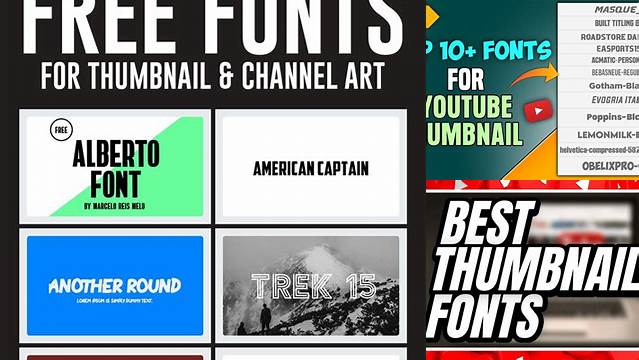
Best Free Fonts For YouTube Thumbnails: Draw Viewers In!
Hey guys! Creating eye-catching YouTube thumbnails is super important for getting those clicks and views, right? And a big part of a great thumbnail is the font you use. But who wants to spend a ton of money on fonts? Nobody! So, let's dive into the world of the best free fonts for YouTube thumbnails that will make your videos stand out from the crowd.
1. Impact: The Classic Choice for a Reason
Impact is like the old faithful of YouTube fonts. It's bold, it's clear, and it gets the message across. Think of all those classic meme images – Impact is often the star! For your YouTube thumbnails, using Impact can be a powerful way to grab attention, especially when you need a short, punchy title to really pop. The thick letters are easy to read even on small screens, which is crucial since most people are browsing YouTube on their phones. But remember, with great power comes great responsibility! Don't overuse Impact, or your thumbnails might start to look a bit generic. Mix it up with other fonts to keep things fresh. Experimenting with colors and outlines can also give Impact a new lease on life. Consider a bright yellow Impact font with a black outline against a contrasting background – that's a classic combo for a reason! You might also try using Impact in combination with a more modern sans-serif font for a balanced look. The key is to make your thumbnail text instantly readable and appealing, and Impact is a solid starting point for achieving that goal. So, if you are searching for the best free fonts for YouTube thumbnails, the Impact is a great option.
2. Bebas Neue: Modern and Clean
If you're going for a modern and clean vibe, Bebas Neue is your new best friend. This sans-serif font is tall, narrow, and super sleek, making it perfect for thumbnails that need a touch of sophistication. It's incredibly versatile, working well for everything from tech reviews to cooking tutorials. The clean lines of Bebas Neue make your text look professional and easy to read, even when you're working with limited space on your thumbnail. Think of it as the font equivalent of a well-tailored suit – it just looks good! Plus, it pairs beautifully with other fonts, so you can create some really interesting typography combinations. Try using Bebas Neue for your main title and a bolder, more playful font for a subtitle or call to action. This font provides one of the best free fonts for YouTube thumbnails. Another great thing about Bebas Neue is its availability. It's a widely used font, so you can find it on pretty much any font platform, and it's completely free for personal and commercial use. That's a win-win! When designing your thumbnail, consider the overall aesthetic of your channel. If you're aiming for a polished, contemporary feel, Bebas Neue is a fantastic choice. Experiment with different font weights and sizes to find the perfect balance for your thumbnail design. Remember, the goal is to create a thumbnail that is both eye-catching and informative, and Bebas Neue can definitely help you achieve that.
3. Montserrat: The All-Around Winner
Montserrat is like the Swiss Army knife of fonts – it can do it all! This sans-serif font is clean, modern, and incredibly versatile, making it a fantastic choice for just about any YouTube thumbnail. Whether you're creating a gaming video, a beauty tutorial, or a travel vlog, Montserrat will fit right in. The beauty of Montserrat lies in its simplicity. It's easy to read, even at smaller sizes, and it has a friendly, approachable vibe. This makes it perfect for attracting viewers who are scrolling through YouTube looking for something interesting to watch. Plus, Montserrat comes in a variety of weights, from thin to bold, giving you plenty of options for creating visual hierarchy in your thumbnail text. You can use a bold weight for your main title and a lighter weight for your subtitle or call to action. Are you looking for the best free fonts for YouTube thumbnails? Montserrat is it. This font is also a dream to pair with other fonts. It works well with both serif and sans-serif fonts, so you can really let your creativity shine. Try pairing Montserrat with a script font for a touch of elegance, or with a bolder sans-serif font for a more impactful look. When using Montserrat on your thumbnails, pay attention to the overall composition. Make sure your text is large enough to be easily readable and that it contrasts well with your background image. A pop of color can also help your text stand out. Overall, Montserrat is a reliable and stylish font that will elevate the look of your YouTube thumbnails.
4. Roboto: Techy and Readable
If your YouTube channel focuses on tech, tutorials, or anything that needs a modern, readable font, Roboto is an excellent pick. This sans-serif font has a clean, geometric design that feels both futuristic and approachable. It's the kind of font that makes your thumbnails look professional and trustworthy, which is exactly what you want when you're sharing your expertise online. Roboto is incredibly versatile, working well for both titles and body text. Its clear, crisp lines make it easy to read on any screen size, which is crucial for YouTube thumbnails that need to grab attention in a matter of seconds. The font is also available in a range of weights, so you can create visual interest by using different weights for different parts of your text. Thinking about the best free fonts for YouTube thumbnails? Consider Roboto! For example, you might use a bold weight for your main title and a regular weight for your call to action. Roboto pairs well with other sans-serif fonts, so you can create some really interesting typography combinations. Try using Roboto for your main text and a bolder, more stylized font for a supporting element, like your channel name or a logo. When designing your thumbnail with Roboto, consider the overall aesthetic of your brand. If you're going for a techy, modern feel, Roboto is a perfect fit. Experiment with different colors and backgrounds to create a thumbnail that is both eye-catching and on-brand. Remember, your thumbnail is the first impression many viewers will have of your channel, so make it count!
5. Open Sans: Friendly and Approachable
Open Sans is like that friendly neighbor you can always count on. This sans-serif font is clean, neutral, and incredibly readable, making it a great choice for YouTube thumbnails that need to feel approachable and welcoming. If you're creating content that's all about connecting with your audience, Open Sans can help you establish that connection right from the thumbnail. Its simple, understated design makes it easy on the eyes, which means viewers are more likely to focus on your message. Open Sans is also super versatile. It works well for a variety of content types, from vlogs and tutorials to educational videos and reviews. The font's neutrality allows your content to shine through, without being overshadowed by an overly stylized typeface. It is definitely one of the best free fonts for YouTube thumbnails. One of the great things about Open Sans is that it comes in a range of weights, from light to bold. This gives you the flexibility to create visual hierarchy in your thumbnail text. You can use a bolder weight for your main title and a lighter weight for your call to action or channel name. This helps guide the viewer's eye and ensures that your message is clear. When using Open Sans, think about the overall tone you want to convey in your thumbnail. If you're aiming for a friendly and approachable vibe, pair Open Sans with bright colors and positive imagery. If you're going for a more professional look, you can use Open Sans with a more muted color palette and clean, simple graphics. Ultimately, Open Sans is a reliable and versatile font that will help you create YouTube thumbnails that are both effective and engaging.
6. Lato: Modern and Balanced
7. Oswald: Bold and Condensed
8. Raleway: Elegant and Geometric
9. Poppins: Geometric and Friendly
10. Montserrat Alternates: A Unique Twist
11. Using Font Combinations Effectively
12. The Importance of Readability
13. Color Considerations for Thumbnail Fonts
14. Font Size and Placement Tips
16. Avoiding Overused Fonts
17. Matching Fonts to Your Channel's Brand
18. Using Font Styles (Bold, Italic, etc.)
19. Creating a Font Hierarchy
20. Font Licensing: What You Need to Know
21. Tools for Font Management
22. The Psychology of Fonts
23. Font Trends in 2024
24. Fonts for Different YouTube Niches
25. Customizing Free Fonts
26. Fonts for Mobile Viewers
27. Accessibility Considerations for Fonts
28. The Role of Fonts in Click-Through Rate (CTR)
29. Font Pairings for Beginners
30. Mastering Typography for YouTube Thumbnails